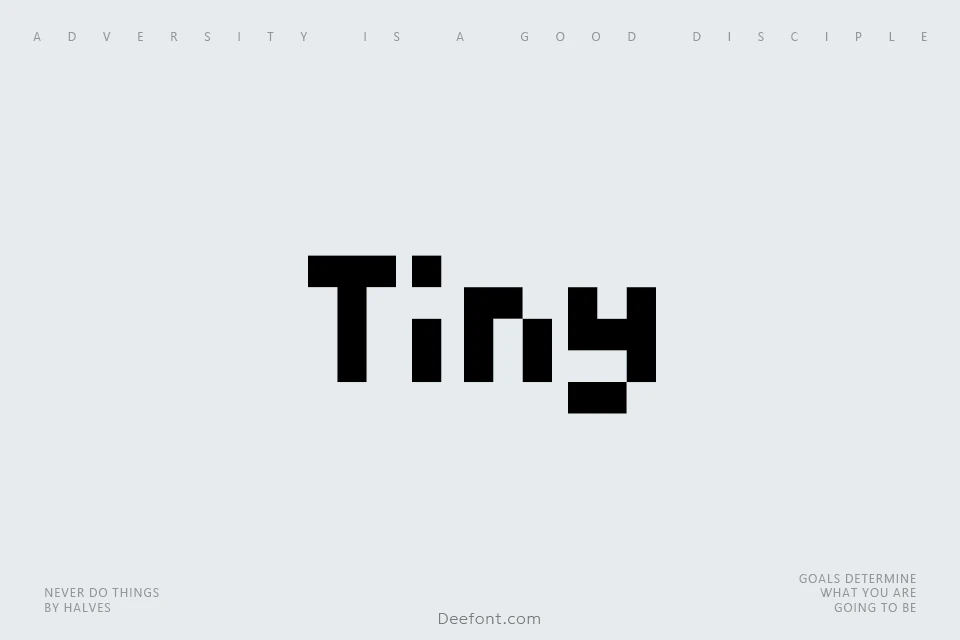
Tiny Font
Tiny Font is a bitmap-inspired display font originally created as the visual identity for an experimental retail pop-up shop in Chinatown, New York City, called “Today in New York” (TINY). Its variable dot size and modular structure make it ideal for bold, pixel-art-inspired designs and creative projects.